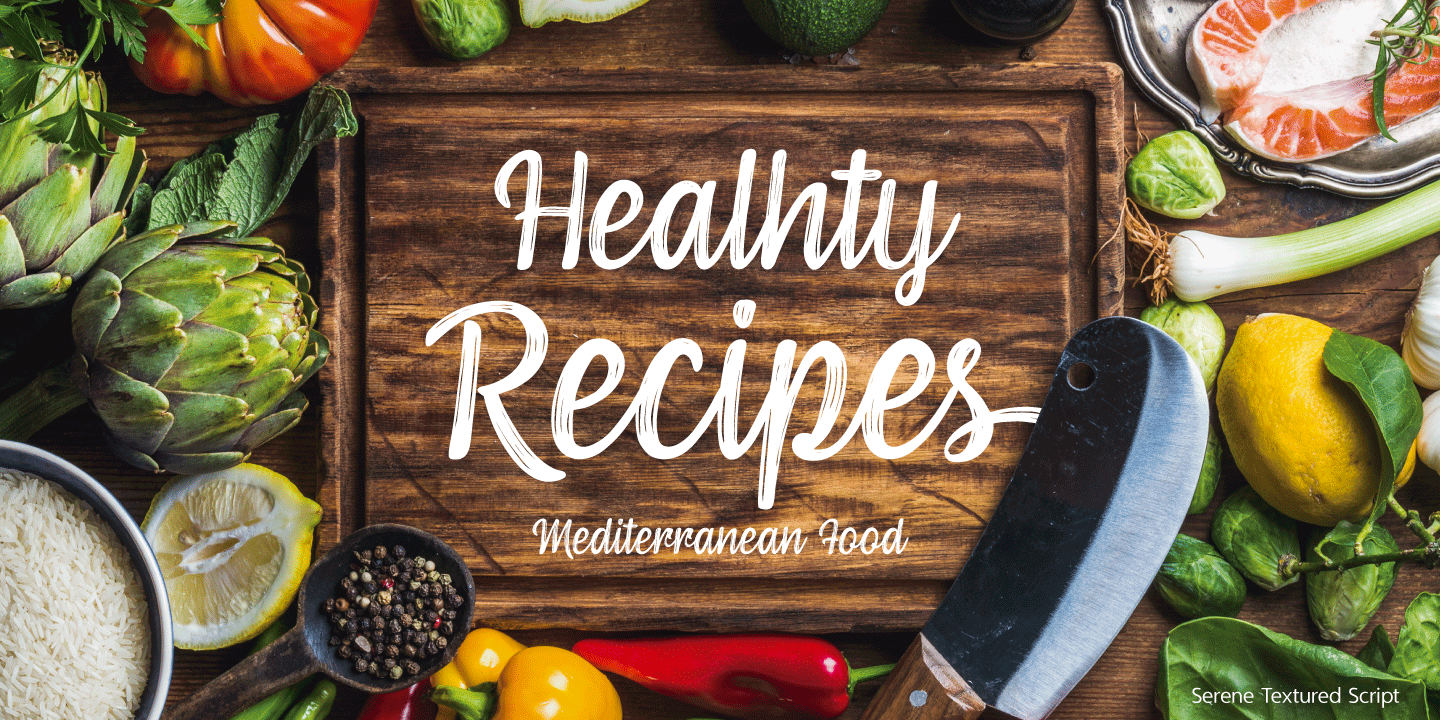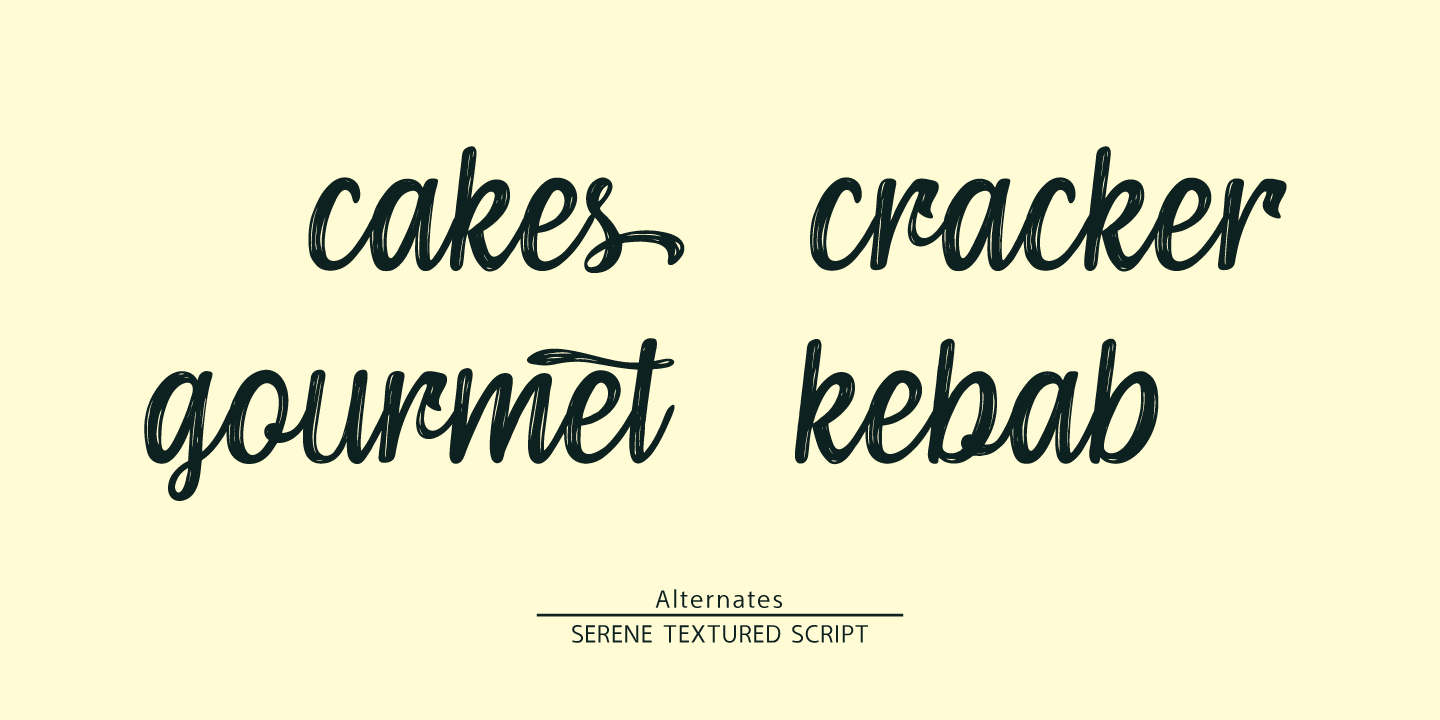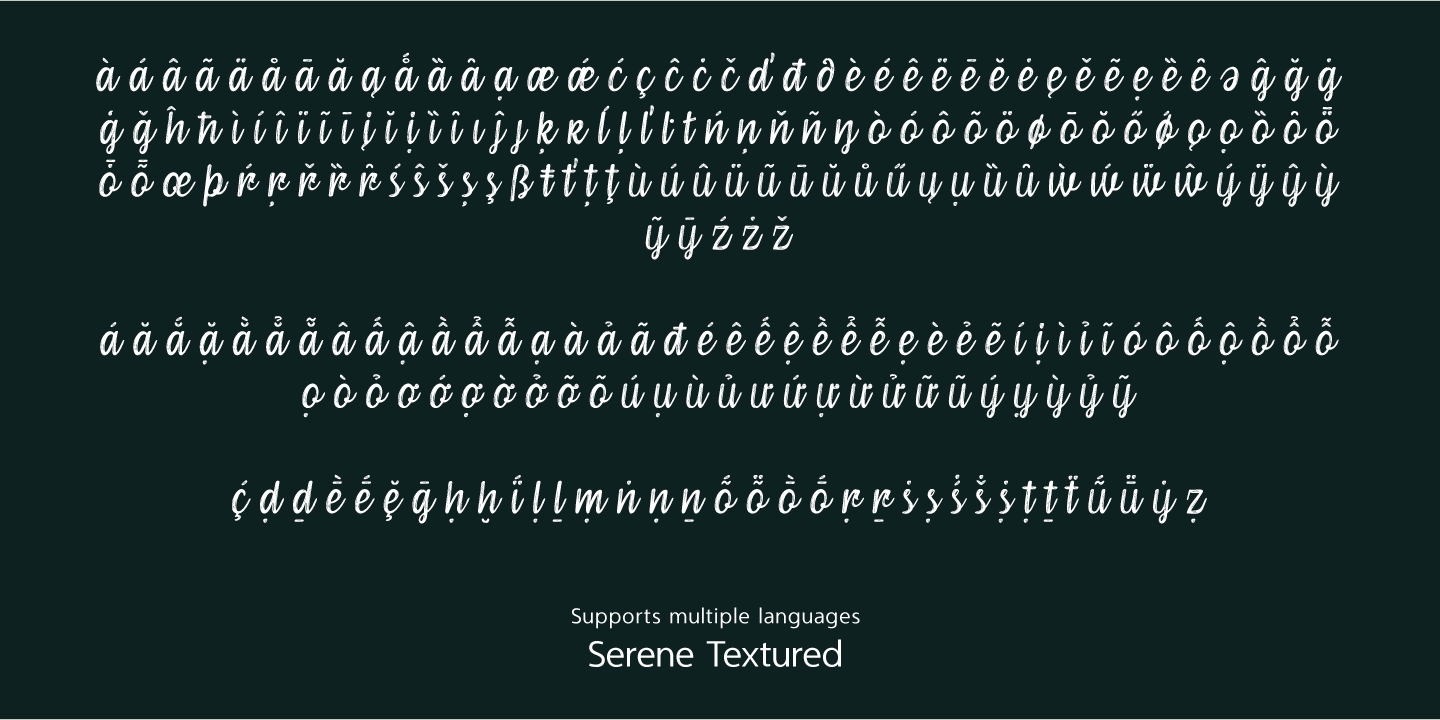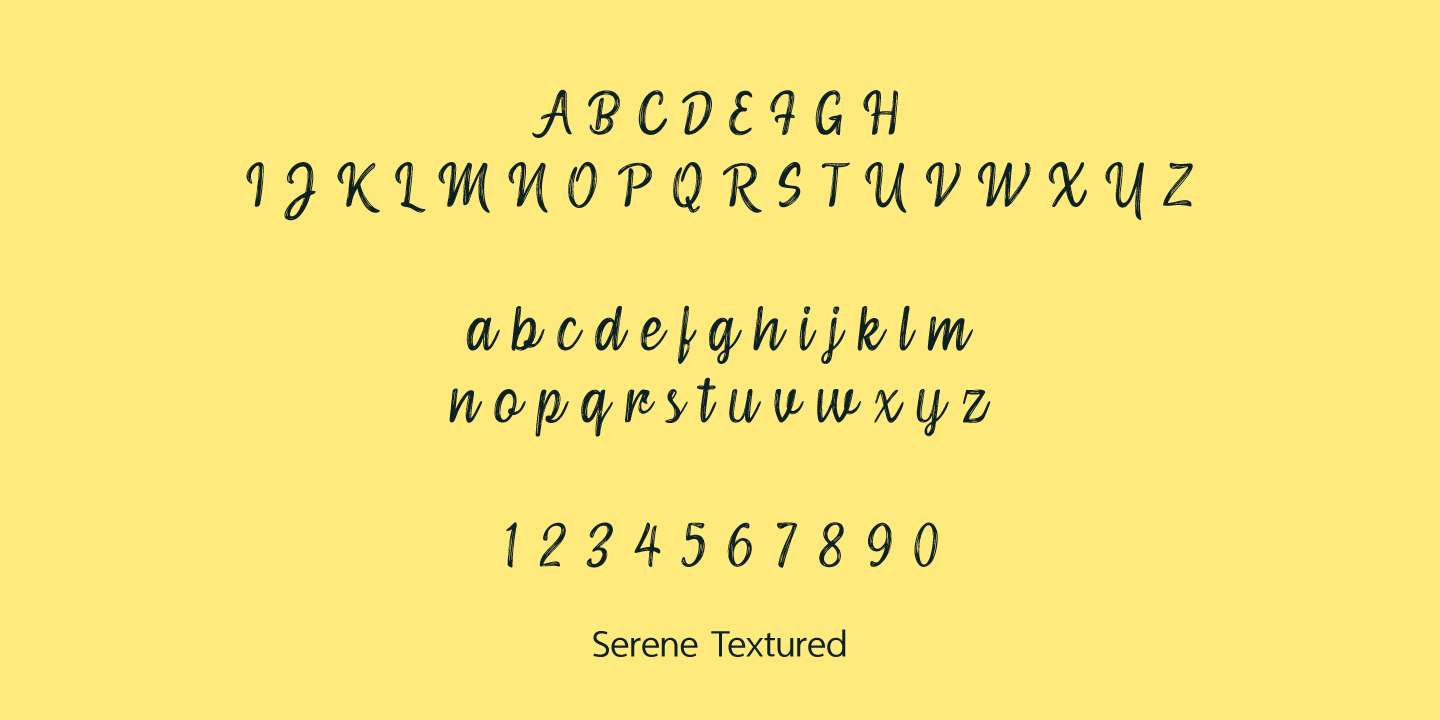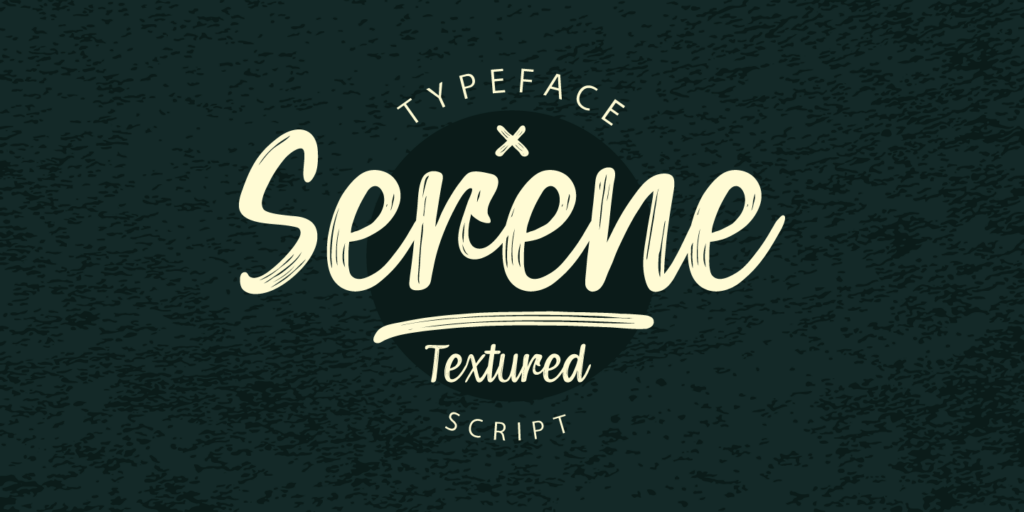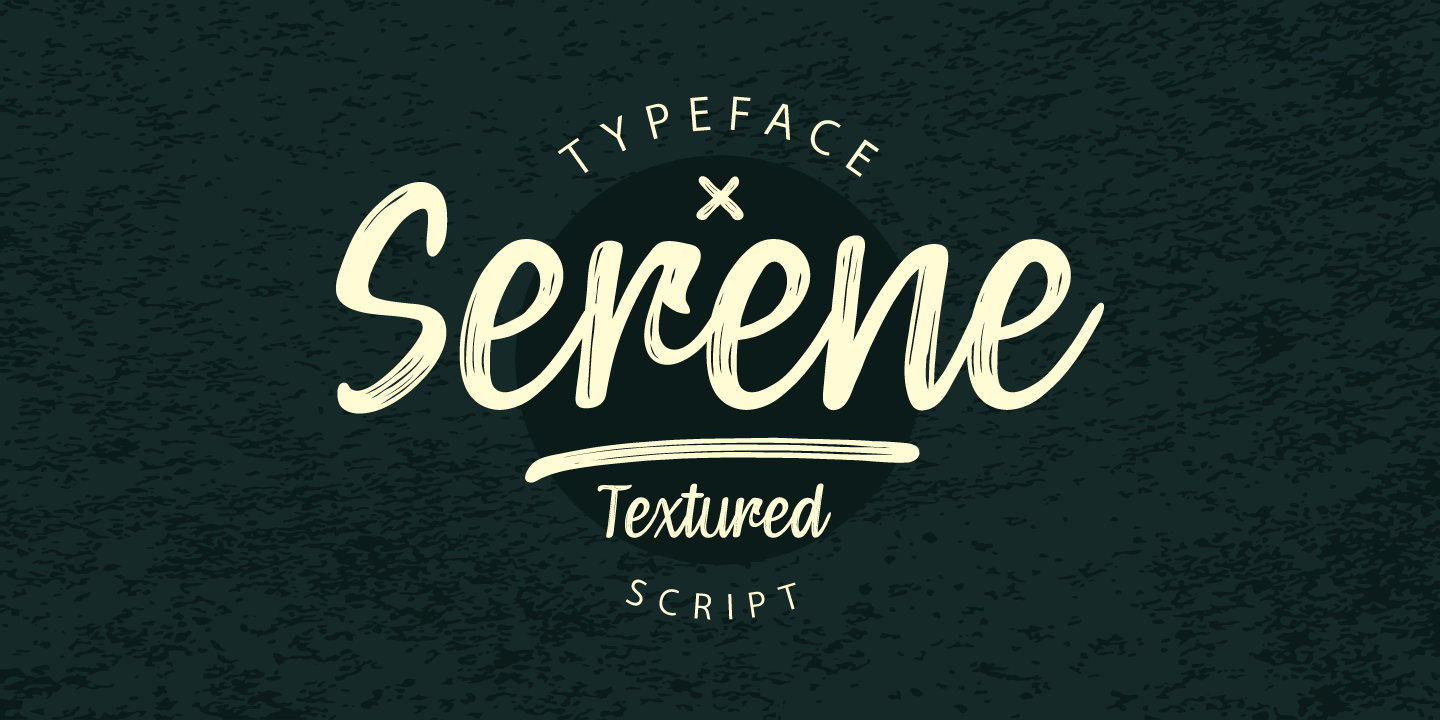
Serene Textured Script
About Serene Textured Script
Serene Textured Script has a rare combination of clean lines and brush texture. Informal yet poised, it excels in logos, headlines in magazines and other display uses. Serene Textured Script brings a slight retro feel with texture to add value to your…